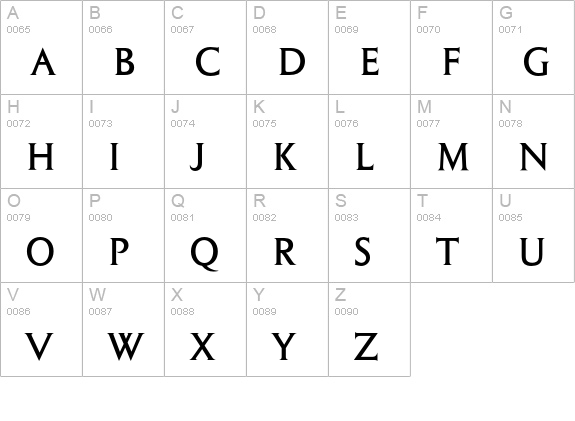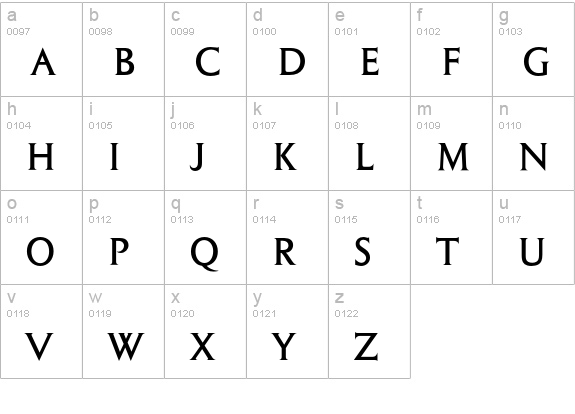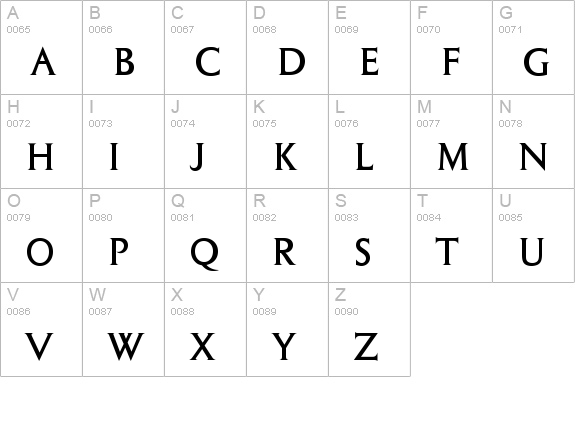
ColumnaEF-Solid Font Details
Introducing ColumnaEF-Solid font, a modern and versatile typeface that exudes sophistication and elegance. This font features clean lines and a solid structure, making it perfect for a wide range of design projects. Whether you're designing a sleek logo, crafting a professional website, or creating eye-catching marketing materials, ColumnaEF-Solid font will help you make a bold statement. This font is not only visually striking, but it is also incredibly easy to read, making it ideal for both print and digital applications. With its timeless appeal and classic design, ColumnaEF-Solid font is sure to elevate any project to the next level. The best part? ColumnaEF-Solid font is available for free download at FontsMarket.com. Take advantage of this amazing opportunity to enhance your designs with this stunning font today!